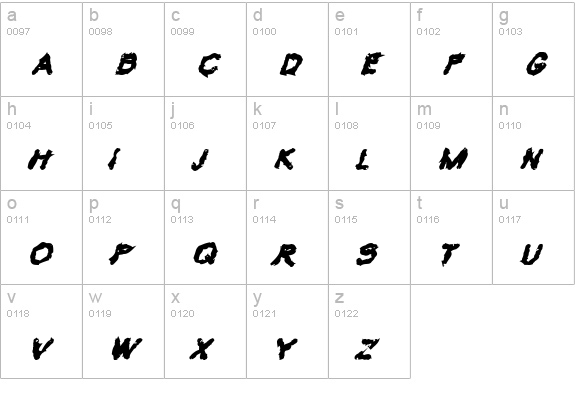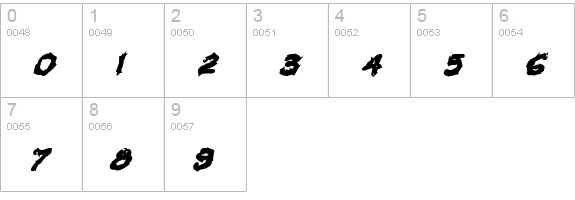
VTC Krinkle-Kut Bold Italic Font Details
VTC Krinkle-Kut Bold Italic is a strong, high-contrast, italic variant in the VTC typeface family \xE2\x80\x94 well suited to headlines, attention-grabbing titles, and strong calls-to-action.
Introducing VTC Krinkle-Kut Bold Italic, a striking and dynamic font that effortlessly combines boldness with an elegant touch of italics. This versatile typeface captivates with its unique design, making it the perfect choice for projects that demand attention and creativity. VTC Krinkle-Kut Bold Italic is the epitome of modern typography, offering a fresh and contemporary aesthetic that will elevate any design. Its bold and powerful strokes convey strength and confidence, while the subtle italics add a touch of sophistication and style. Whether used for headlines, logos, posters, or any other design project, this font will leave a lasting impression. What sets VTC Krinkle-Kut Bold Italic apart is not only its exceptional design but also its accessibility. This font is available for free download at FontsMarket.com, ensuring that designers and enthusiasts alike can easily access and utilize its full potential. With just a few clicks, you can enhance your projects with the bold and italic charm of VTC Krinkle-Kut. With its wide range of characters and extensive language support, VTC Krinkle-Kut Bold Italic offers unlimited creative possibilities. Whether you're designing a modern website, creating eye-catching advertisements, or crafting unique branding materials, this font will effortlessly adapt to your vision and deliver exceptional results. Don't miss the chance to add VTC Krinkle-Kut Bold Italic to your font collection. Its versatility, boldness, and elegance make it an invaluable asset for any design project. Download it for free at FontsMarket.com and unleash your creativity with this remarkable font.